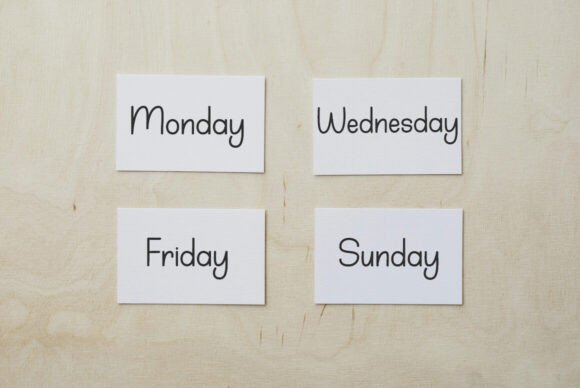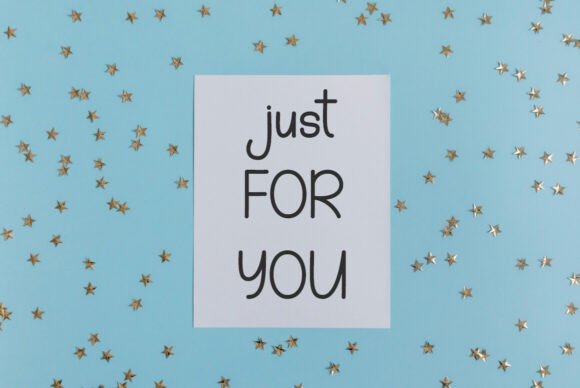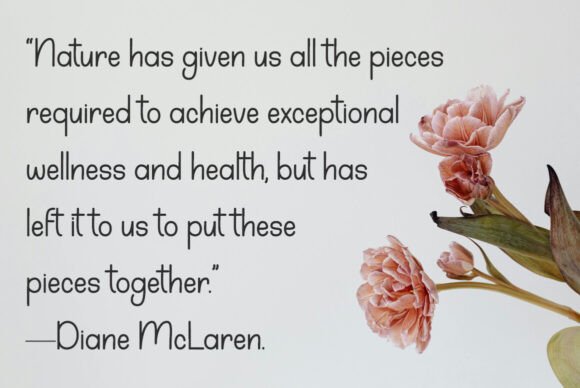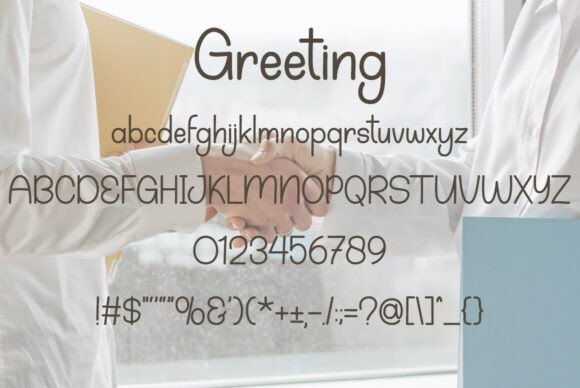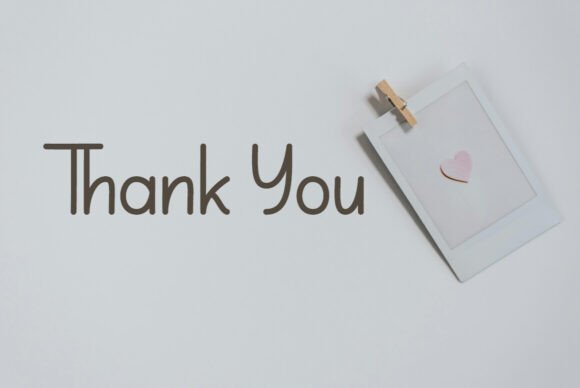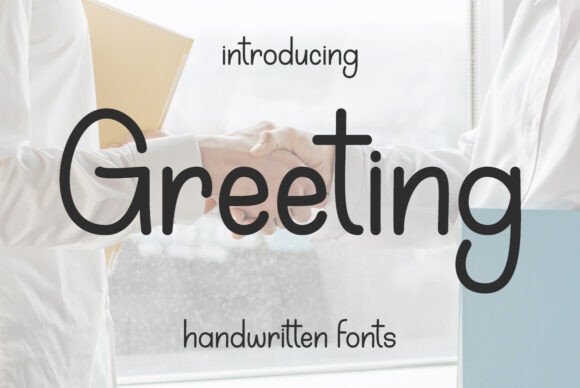
Introducing Greeting Font: The Perfect Blend of Elegance and Whimsy
In the world of typography, few fonts manage to capture the essence of warmth and personality as effectively as ‘Greeting.’ This hand-crafted font is a masterpiece of design, boasting a unique charm that is impossible to ignore. With its sweet and affable character, ‘Greeting’ breathes life into any design project, making it an ideal choice for creatives seeking to add a touch of sophistication and playfulness to their work.
The Unique Character of Greeting Font
What sets ‘Greeting’ apart from other fonts is its inherent individuality. Each letter in this font family is meticulously crafted to showcase a distinct personality, ensuring that every word and sentence is a testament to the beauty of uniqueness. This distinctive quality makes ‘Greeting’ the perfect fit for projects where making a statement is crucial, such as wedding invitations, greeting cards, and other personal or professional designs that demand a level of elegance and charm.
Ideal for Wedding Invites and Emotive Cards
For those in search of the perfect font for wedding invitations or emotive cards, ‘Greeting’ emerges as a top contender. Its sophisticated yet playful demeanor ensures that it can convey the gravity and joy of significant life events with equal finesse. Whether you’re designing bespoke wedding invites or heartfelt get-well cards, ‘Greeting’ lends a touch of class and whimsy that elevates your creations from ordinary to extraordinary.
Adding a Touch of Playful Elegance to Designs
‘Greeting’ is more than just a font; it’s a design element that can transform the aesthetic of any project. Its ability to infuse a sense of playfulness and elegance makes it a versatile tool for designers and crafters. From branding and packaging to digital content and advertising, ‘Greeting’ can add a unique flair that captures attention and fosters engagement. This font is particularly beneficial for projects that aim to connect with audiences on a more personal level, offering a warmth and approachability that digital content often lacks.
Why Choose Greeting Font?
There are several reasons why ‘Greeting’ should be at the top of your font choices:
- Unique and Memorable: The distinctive character of ‘Greeting’ ensures that your designs stand out in a crowded digital landscape.
- Versatile: Suitable for a wide range of projects, from formal wedding invitations to casual greeting cards and playful branding.
- Elegant yet Playful: Offers the perfect balance of sophistication and whimsy, making it adaptable to various design needs.
- Hand-crafted: Each letter is carefully designed to contribute to a cohesive yet individualistic feel.
Tips for Using Greeting Font Effectively
To make the most of ‘Greeting,’ consider the following tips:
- Pair with Complementary Fonts: While ‘Greeting’ is stunning on its own, pairing it with a more straightforward font can enhance its beauty and improve readability.
- Experiment with Colors: The emotional impact of ‘Greeting’ can be further emphasized by choosing colors that resonate with the mood of your design.
- Use for Headers and Highlights: Given its unique charm, ‘Greeting’ is particularly effective when used for headers or to highlight key information.
‘Greeting’ is more than just a font; it’s a design statement. Its captivating allure, coupled with a sweet and affable character, makes it an indispensable tool for designers and crafters aiming to infuse their projects with a touch of elegance and playfulness. Whether you’re working on wedding invitations, emotive cards, or any design that requires a unique edge, ‘Greeting’ is sure to exceed your expectations. Experience the magic of ‘Greeting’ and let its distinctive charm breathe life into your creative endeavors.